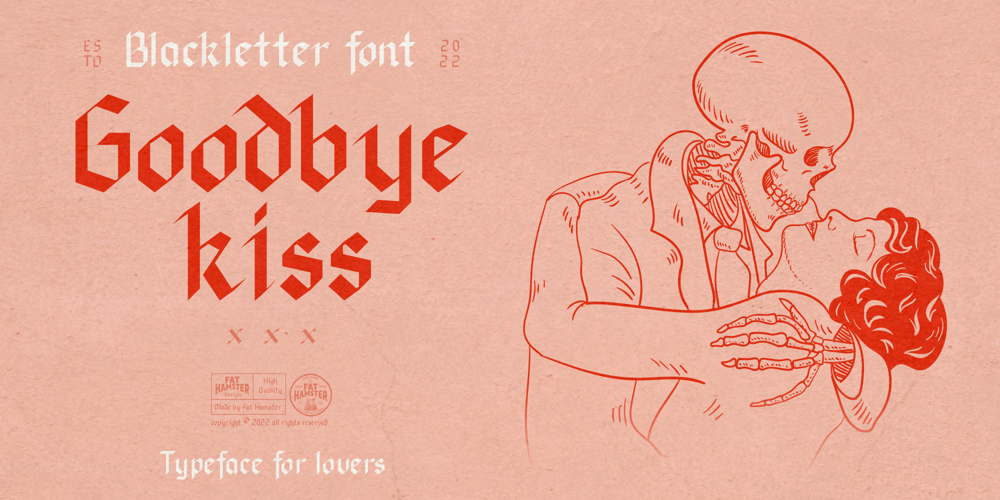
Goodbye Kiss
Goodbye Kiss font
Goodbye Kiss Font Family was designed by Alesia Kutsian, Aliaksei Hvozdzeu and published by Fat Hamster. Goodbye Kiss contains 1 styles and family package options. Goodbye kiss is a stylish and elegant typeface. It comes with FREE logo design templates and illustrations. Goodbye kiss is a combination of femininity & brutality. This typefaces is perfect for tattoo projects, poster design, t-shirt design, printing, logo design, quotes, apparel design, album covers and etc.